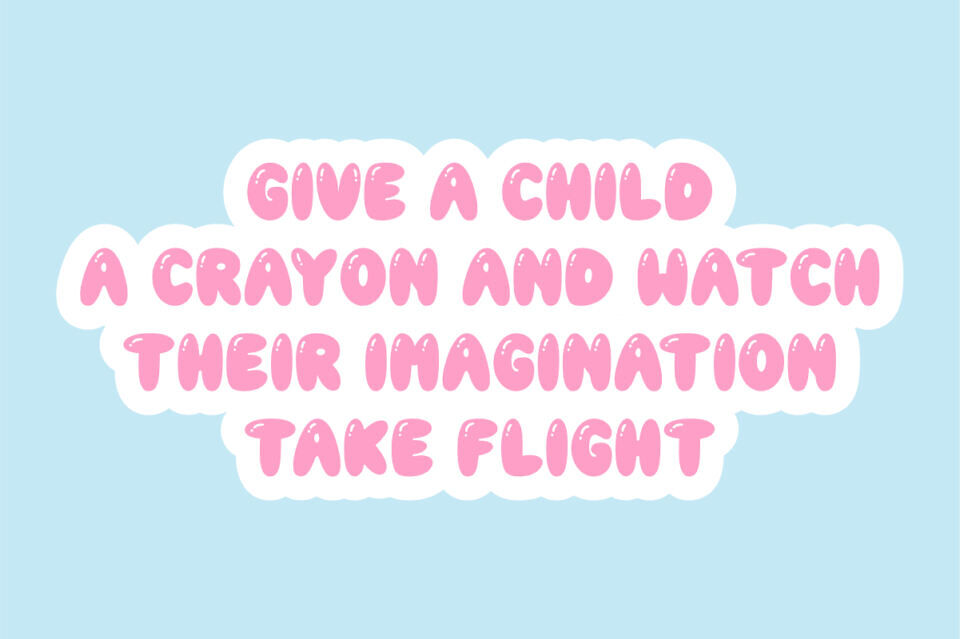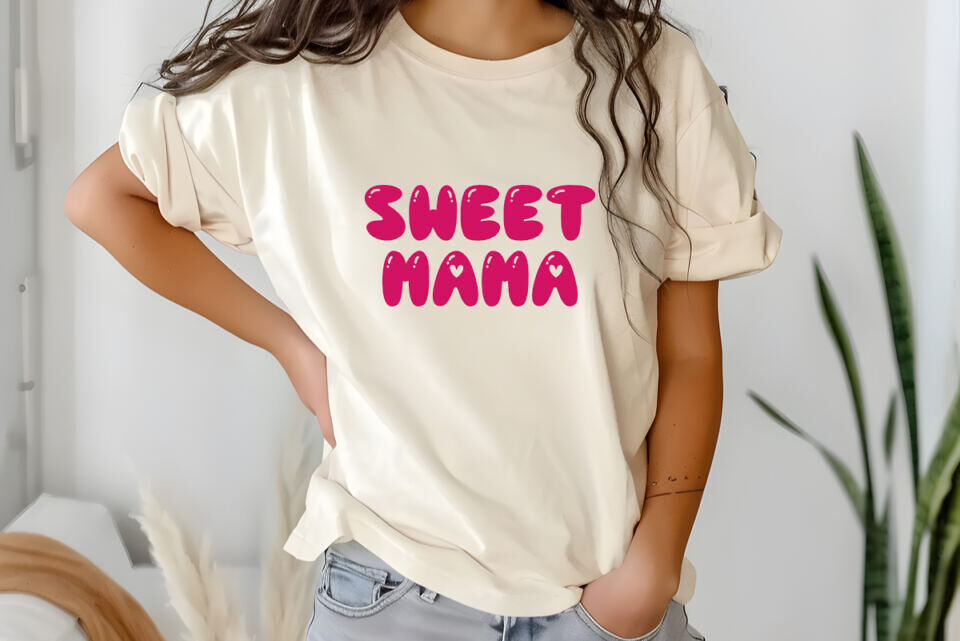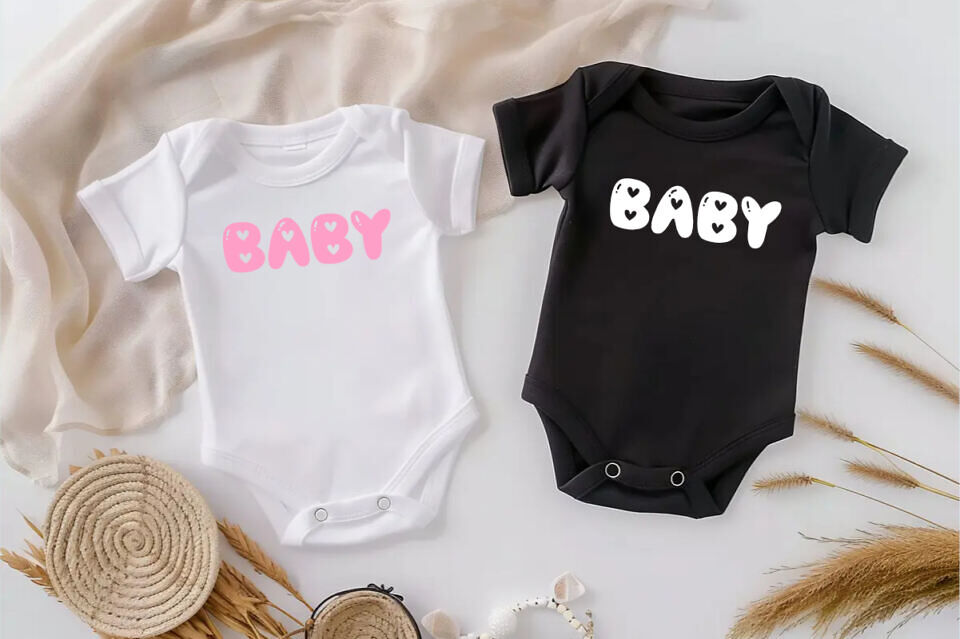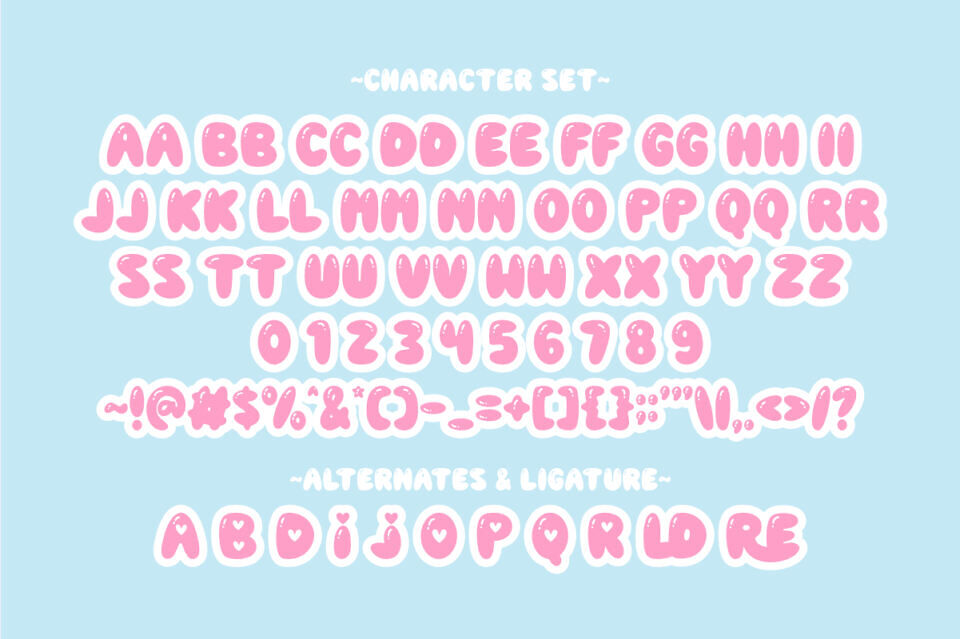
Creative Children is an absolutely adorable and playful bubble display font that instantly brings a burst of youthful energy and whimsical charm to any design. Its plump, rounded letterforms feature delightful heart accents, creating a truly endearing and eye-catching presence perfect for young audiences.
This font is perfect for infusing a dose of fun and cheerfulness into a wide variety of creative projects aimed at kids. Imagine Creative Children enhancing vibrant stickers, enchanting planner elements for school, eye-catching t-shirt designs for little ones, sweet product labels for children’s goods, cheerful birthday invitations, personalized tumblers, and a plethora of other engaging crafts.